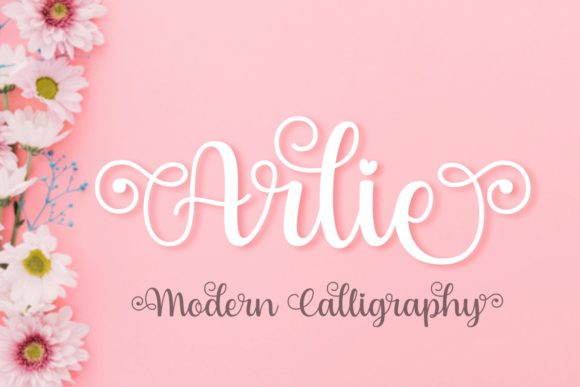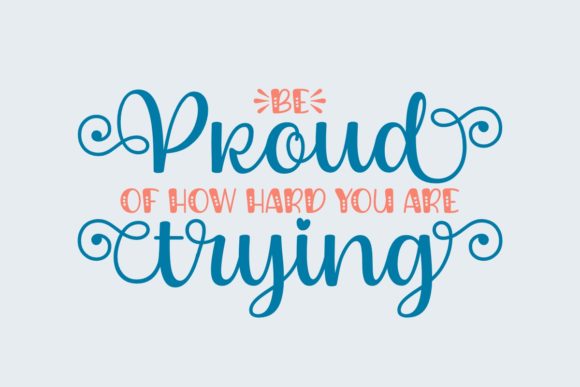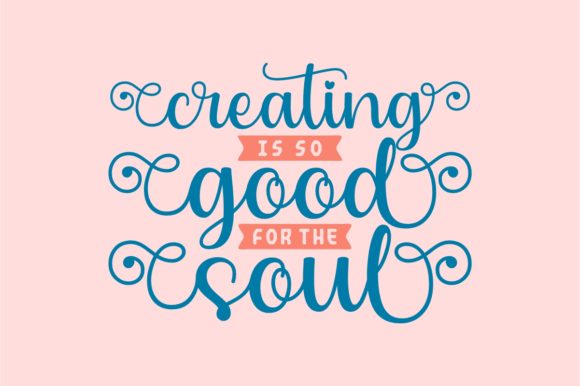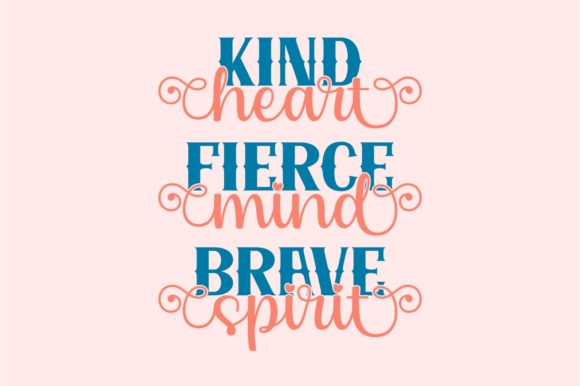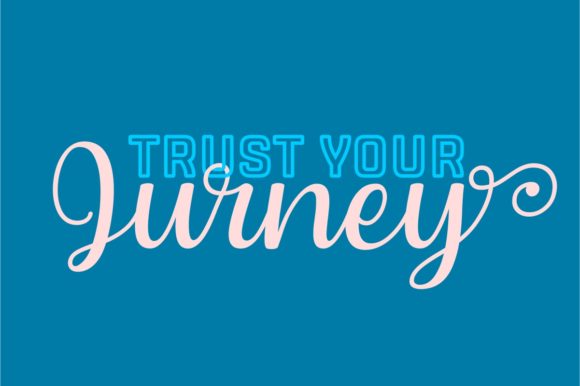
Arlie Font
About Arlie Font
Arlie is a magnificent handwritten font that has a beautiful selection of ligatures and swashes to choose from making it perfect for your next design project!